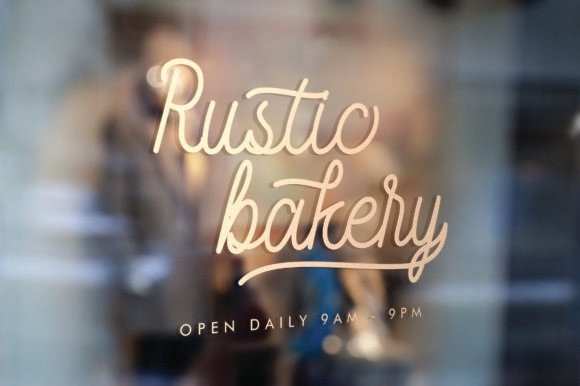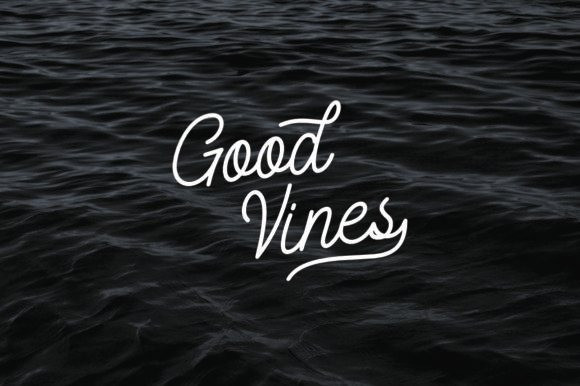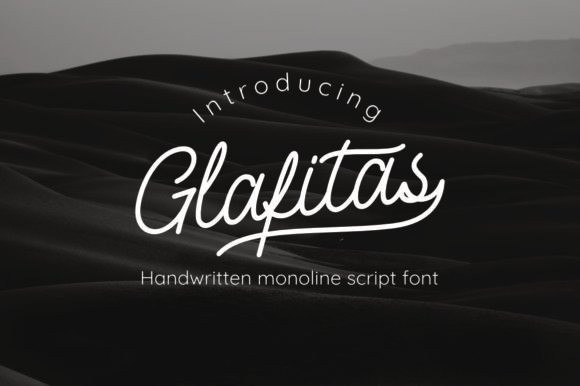
Glafitas Handwritten Font
Glafitas is a lovely and delicate retro styled handwritten font. No matter the topic, this font will be an incredibly asset to your fonts’ library, as it has the potential to elevate any creation.